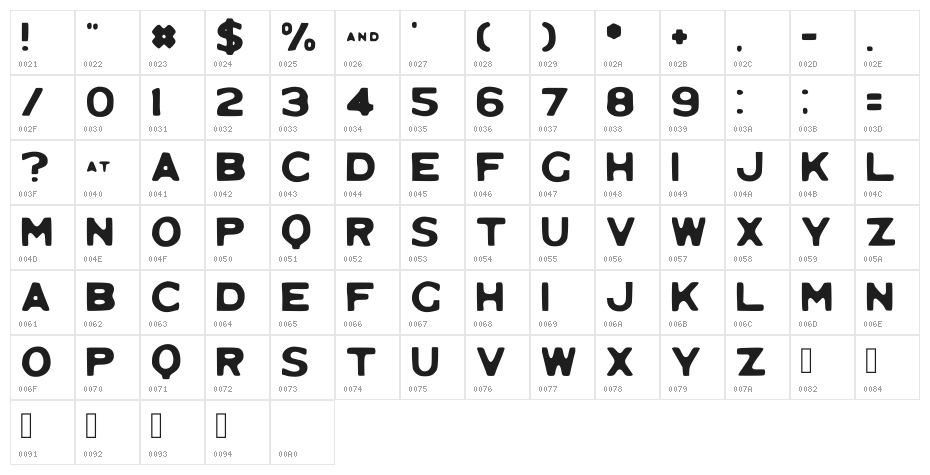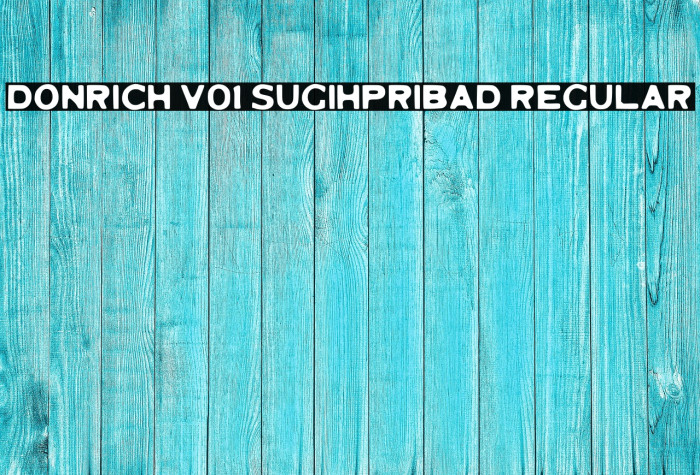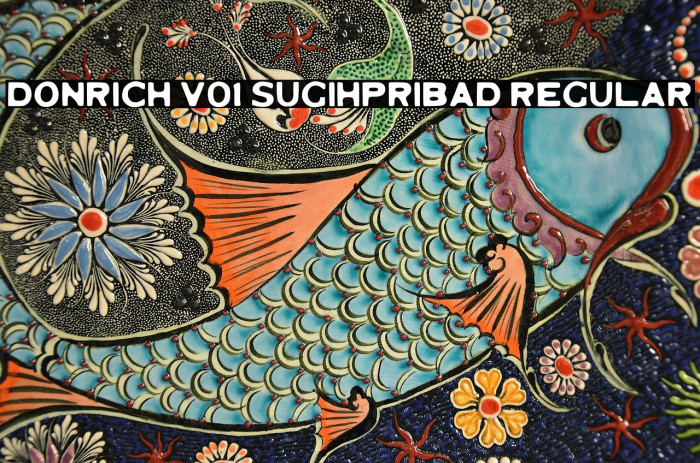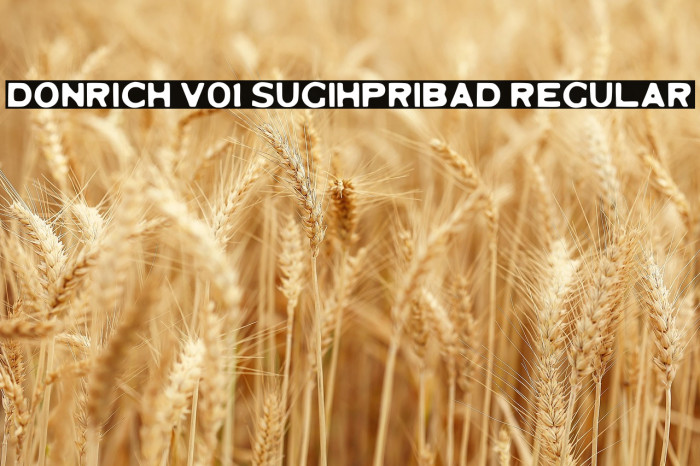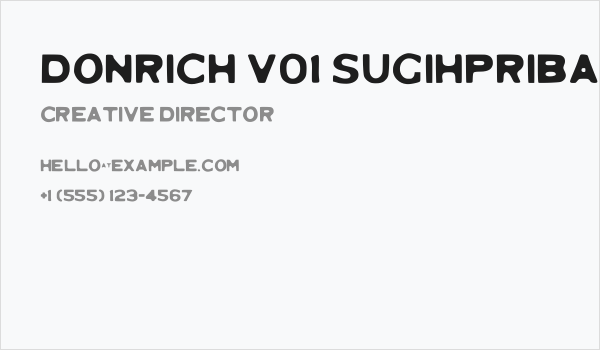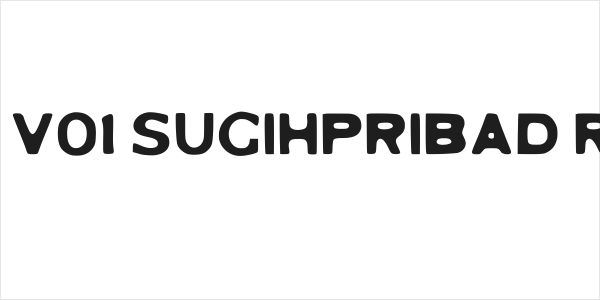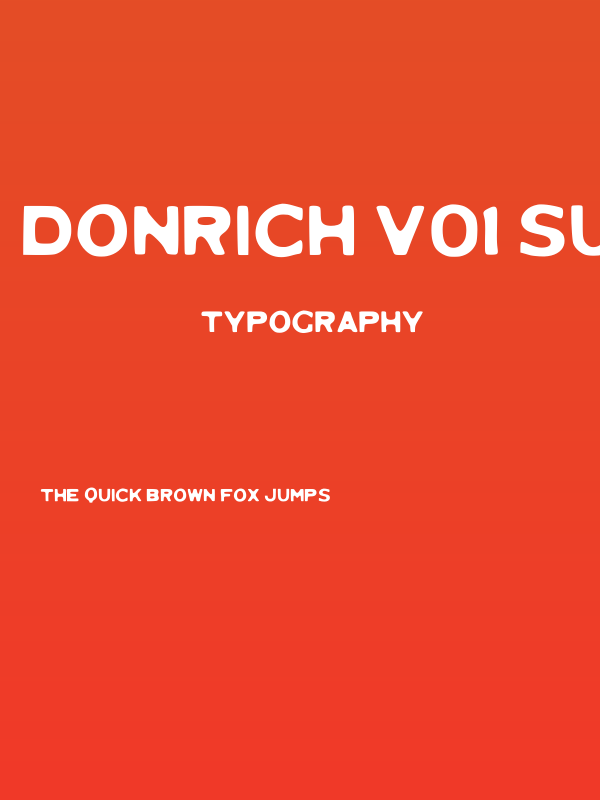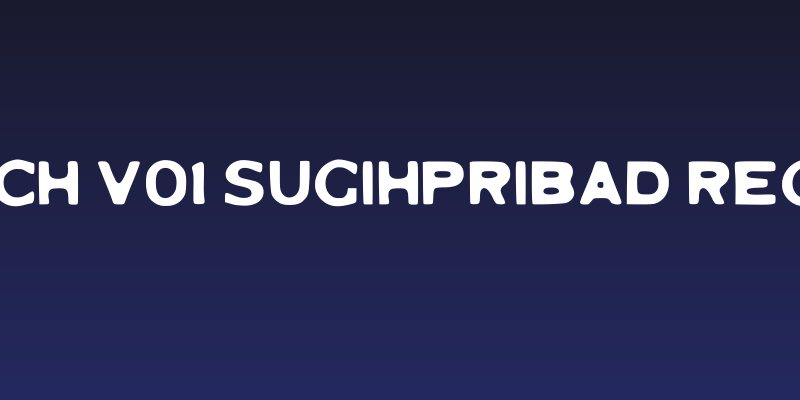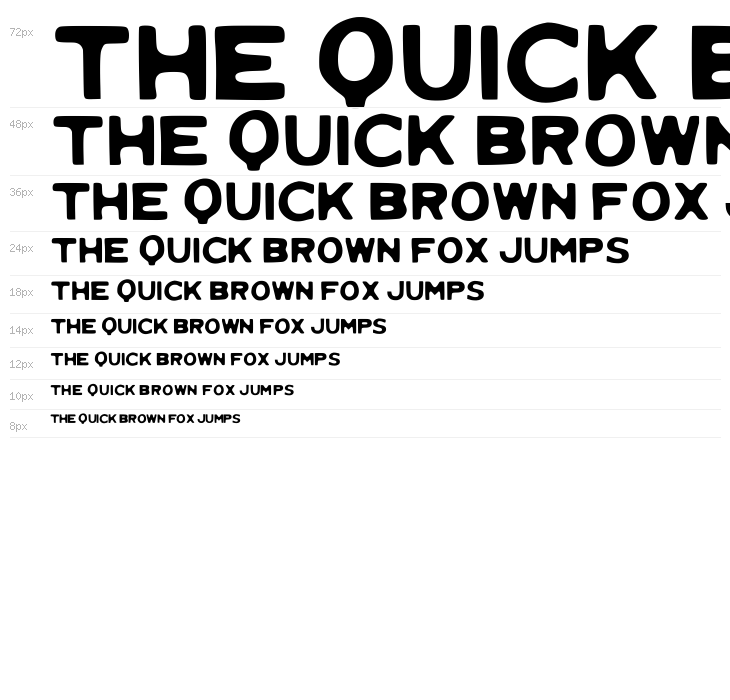
Donrich V01 Sugihpribad Regular Font
Donrich V01 Sugihpribad Regular Description
This font features a bold and playful design with rounded edges and a slightly irregular shape, giving it a friendly and approachable appearance. The characters are thick and substantial, making them stand out prominently. The font maintains a consistent weight throughout, with a uniform stroke width that adds to its boldness. The spacing between characters is normal, ensuring readability while maintaining its distinctive style. The overall look is modern and slightly whimsical, making it suitable for creative and informal applications.
| Overall Style | Modern, Whimsical |
| Proposed Projects | Ideal for children's books, playful branding, posters, and creative advertising. |